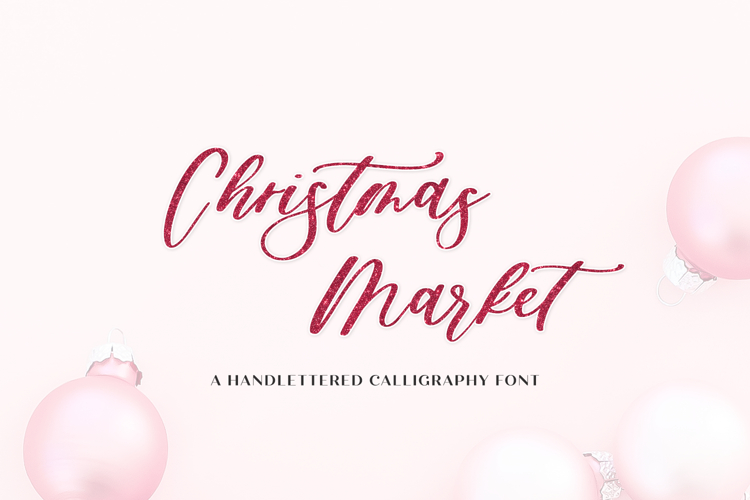
Christmas Market Font
Introducing Christmas Market Script, a handwritten calligraphy script with smooth lines, beautiful flow, and lovely alternates. This calligraphy font includes 26 alternate characters — some with loopy flourishes — and 14 common ligatures. Christmas Market Script was inspired by the spirit of German Christmas Markets, handmade little trinkets, and that warm holiday feel.
Christmas Market Script is best for:
- holiday greeting cards, gift tags, & other festive items
- feminine logos + branding
- website design + website accents